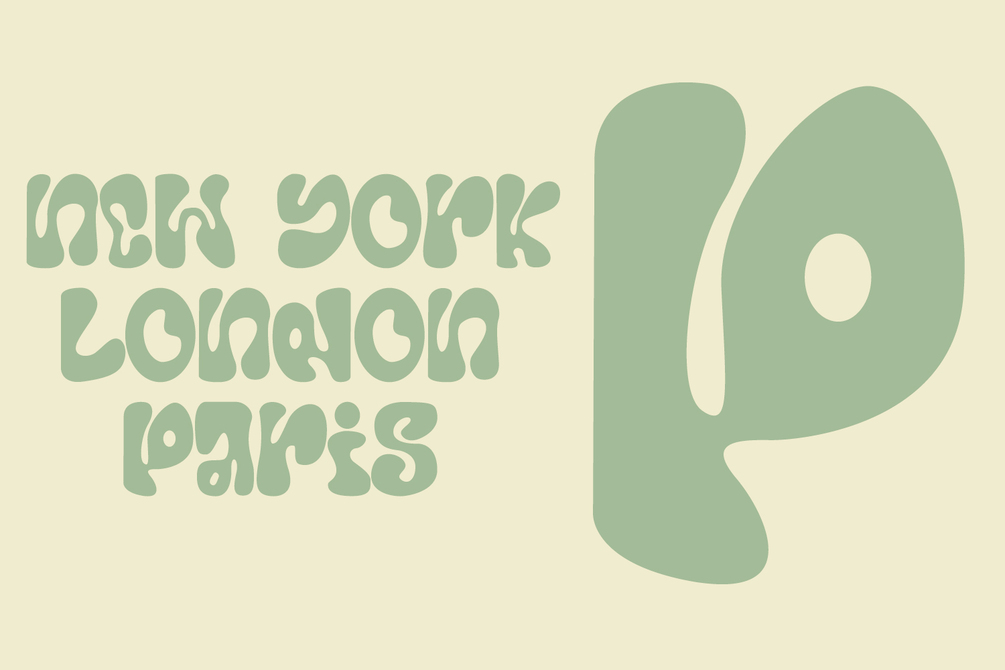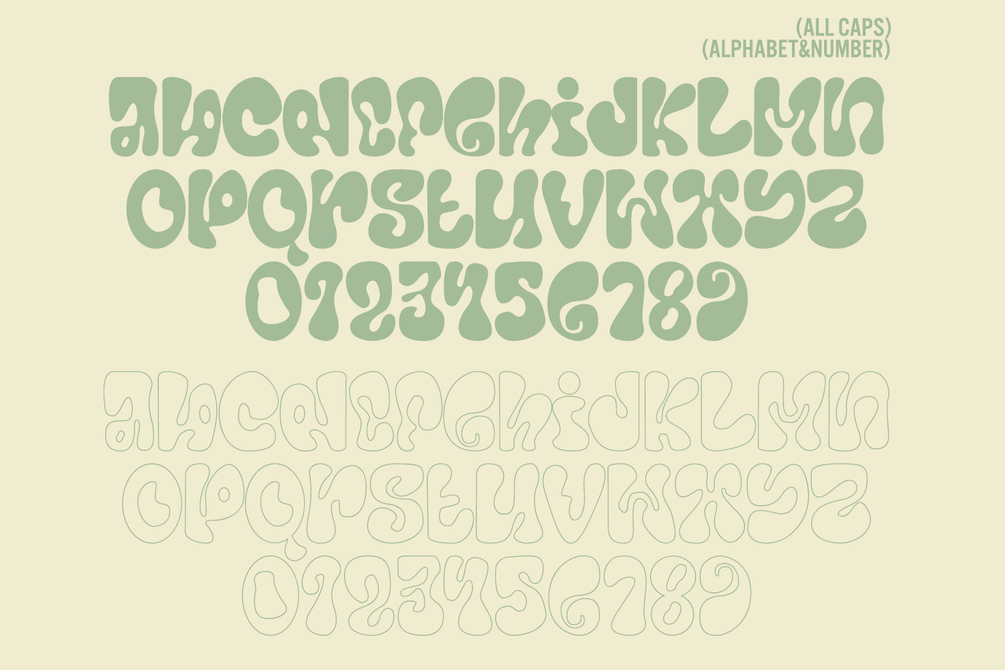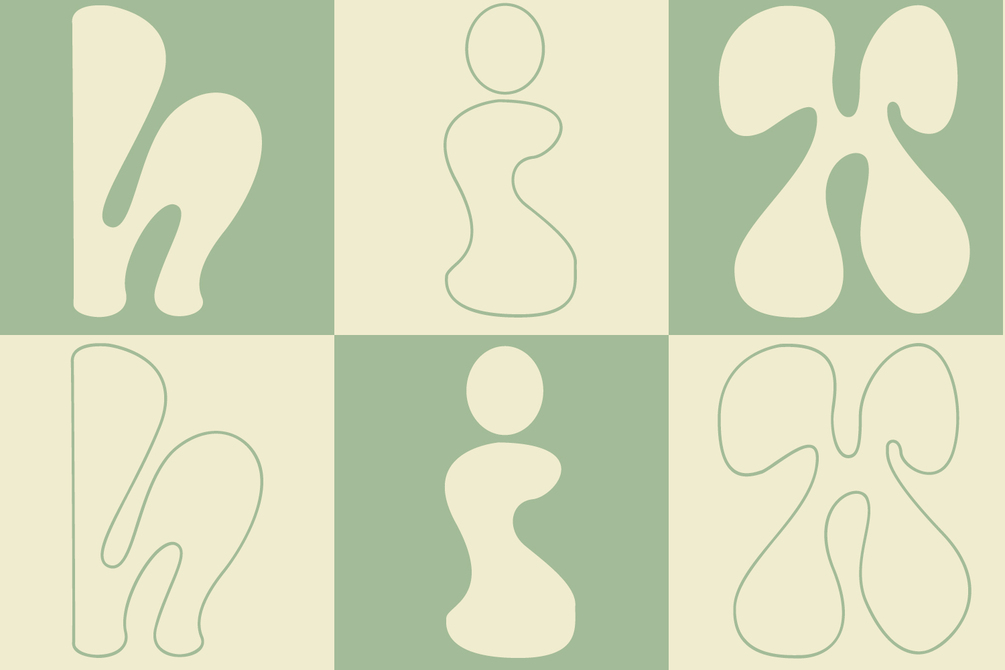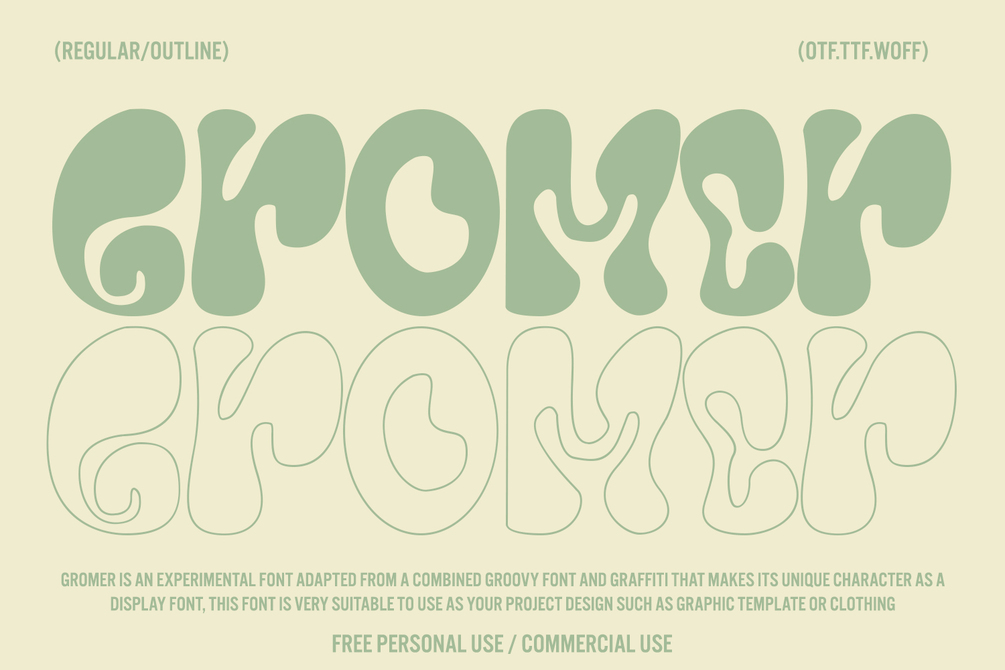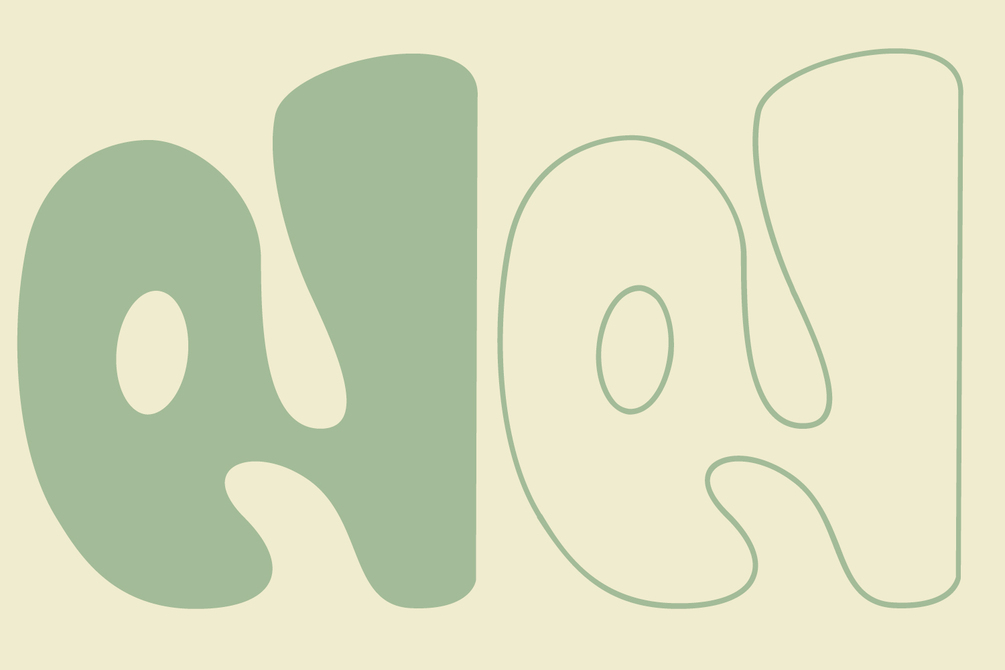
Gromer Font
GROMER IS AN EXPERIMENTAL FONT ADAPTED FROM A COMBINED GROOVY FONT AND GRAFFITI THAT MAKES ITS UNIQUE CHARACTER AS A DISPLAY FONT, THIS FONT IS VERY SUITABLE TO USE AS YOUR PROJECT DESIGN SUCH AS GRAPHIC TEMPLATE OR CLOTHING